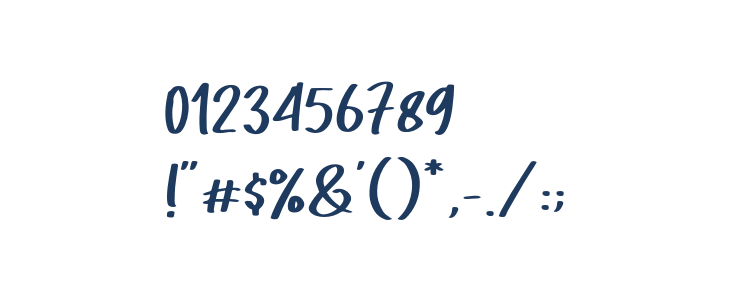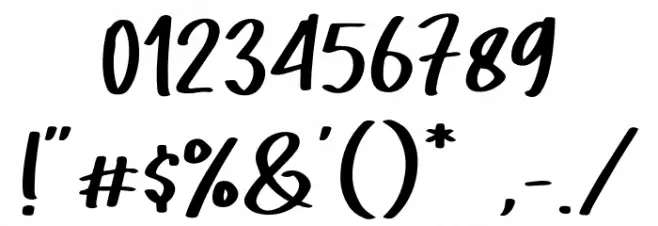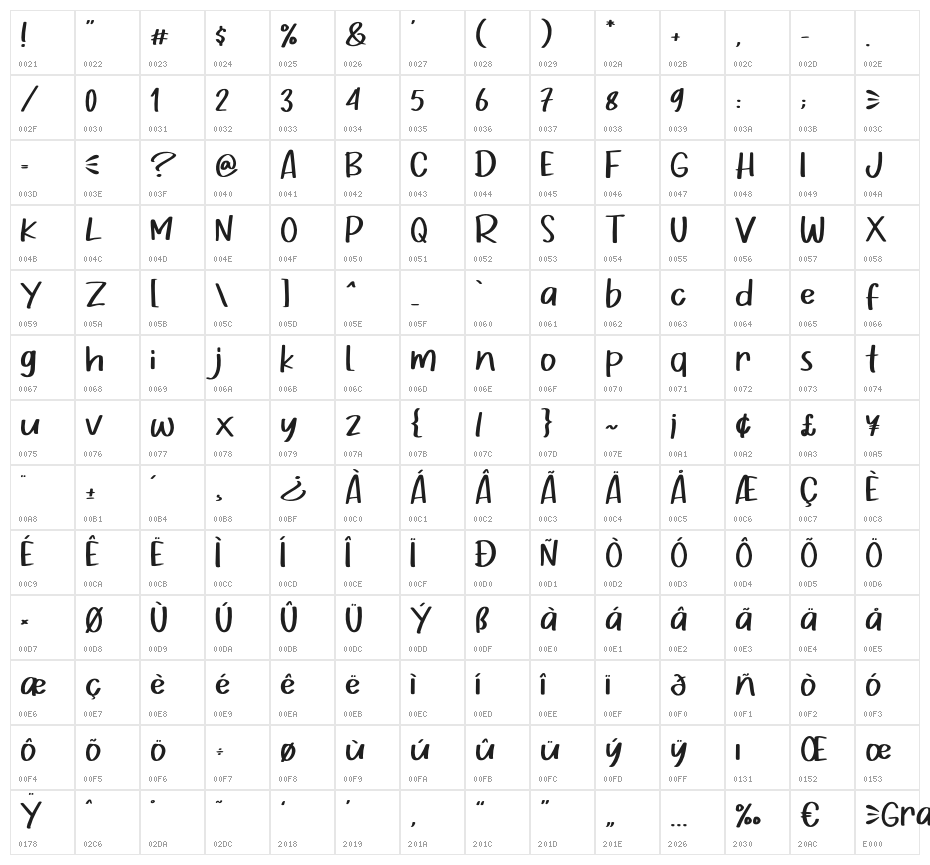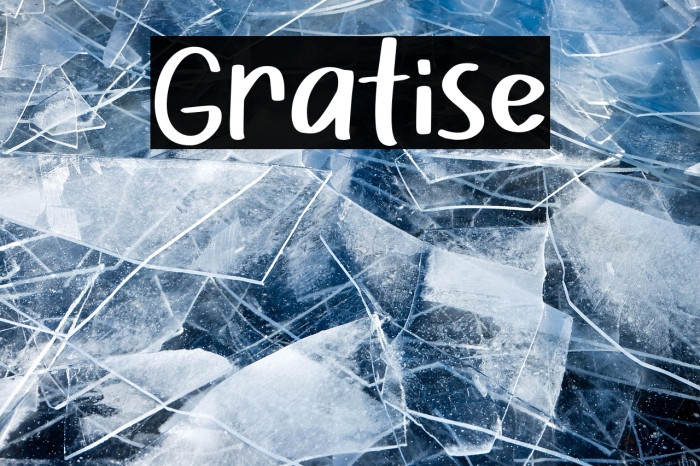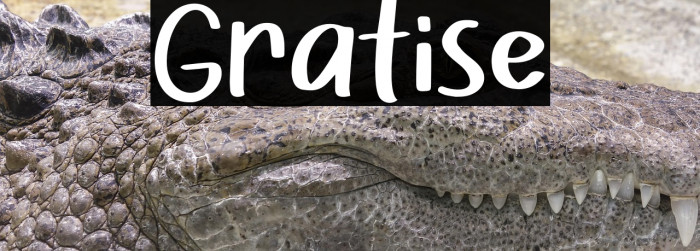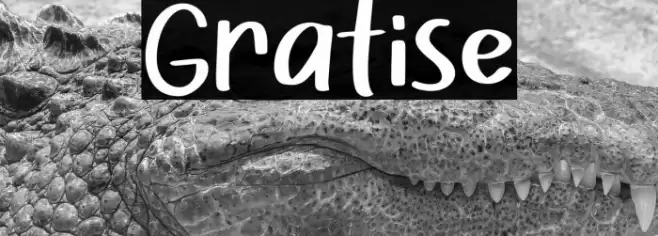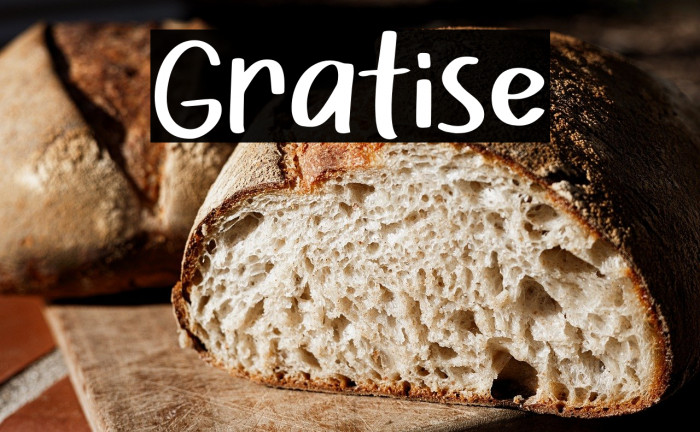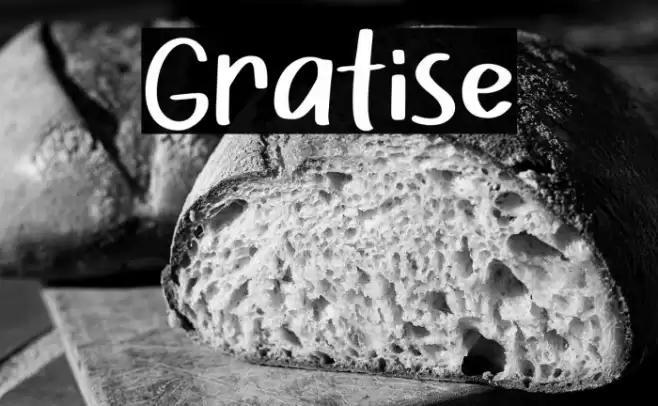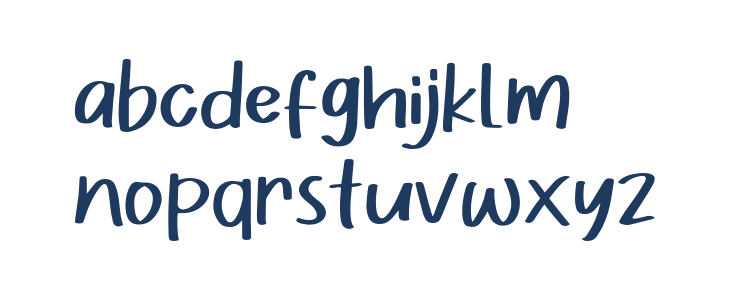
Gratise Font
Gratise Description
This font features a playful and casual handwritten style, characterized by its smooth, flowing curves and slightly irregular shapes. The uppercase letters are bold and prominent, while the lowercase letters maintain a consistent, friendly appearance. The numerals are clear and easy to read, complementing the overall informal aesthetic. Special characters are well-integrated, adding to the font's versatility. The strokes are moderately thick, providing a balanced contrast that enhances readability without sacrificing the font's whimsical charm.
| Proposed Projects | Ideal for greeting cards, playful branding, children's books, and casual invitations. |